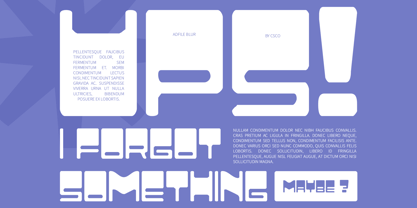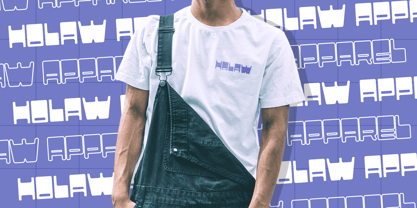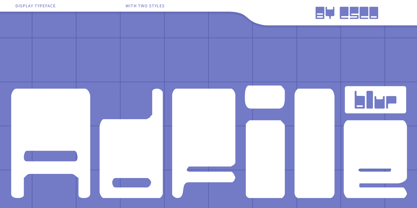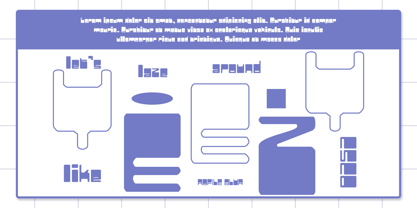
Adfile Blur
Die Schriftfamilie Adfile Blur wurde von Trio Nazzar Saputra, Wahyu Hadi Yuana entworfen und von Craft Supply Co veröffentlicht. Adfile Blur enthält 2 Stile und Familienpaketoptionen. Mehr über diese Familie
Adfile Blur – Y2K-Inspired Funky Display Font: Bold, Playful, and Dynamic
Bold Geometric Design
Adfile Blur is a captivating display sans serif font featuring bold, geometric shapes that exude a vibrant Y2K aesthetic. Its unique design captures the playful spirit of the early 2000s, making it a standout choice for projects that aim to evoke nostalgia while remaining fresh and contemporary.
Striking Blur Effects for Visual Impact
The standout feature of Adfile Blur is its striking blur effects, which add a dynamic and engaging look. This visual treatment enhances the font’s character, creating a sense of movement and energy that draws the eye. Whether used in headlines or creative branding, the blur effect ensures your message stands out in any design.
Perfect for Cheerful and Unique Designs
This font is perfect for projects that convey cheerfulness and uniqueness, making it an ideal choice for posters, branding, and other creative applications. Its playful vibe adds a modern touch to any design, appealing to a youthful audience seeking fun and innovative visuals.
Versatile for Modern Creative Projects
Adfile Blur’s combination of bold shapes and blur effects makes it versatile for various applications, from event promotions to trendy merchandise. It captures attention effortlessly, ensuring that your designs resonate with a contemporary and playful aesthetic, perfect for the creative landscape of today.